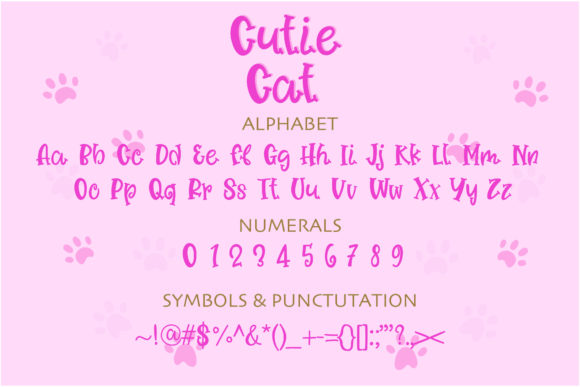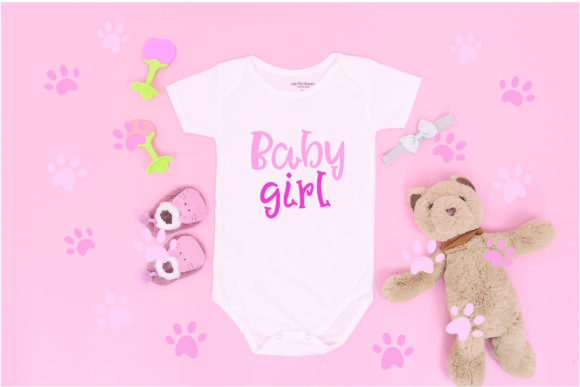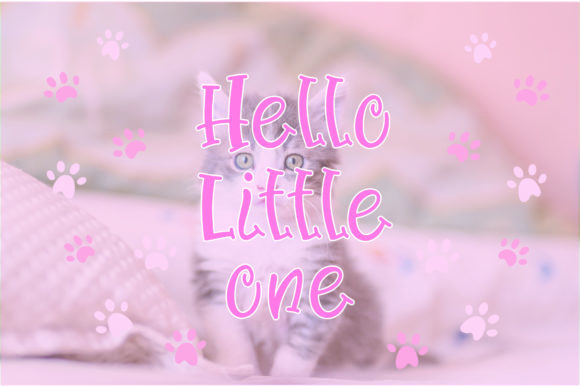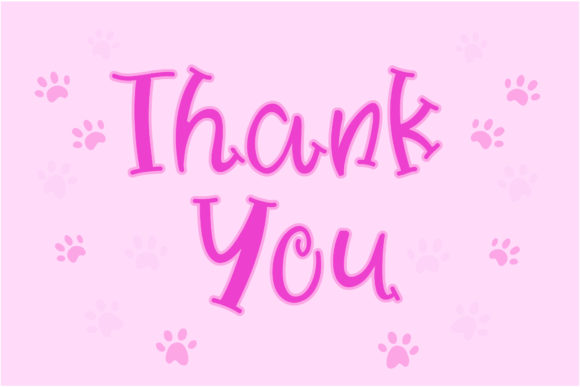
Introducing Cutie Cat Font: The Purrfect Addition to Your Font Library
Are you a designer, crafter, or DIY enthusiast looking for a font that can add a touch of warmth and personality to your creations? Look no further than Cutie Cat Font, a lovely, jolly, and relaxed handwritten font that’s sure to become a favorite in your font library. In this article, we’ll explore the features and benefits of Cutie Cat Font, and why it’s a wonderful asset to have in your design toolkit.
The Charm of Cutie Cat Font
Cutie Cat Font is a beautifully crafted handwritten font that’s designed to bring a sense of joy and playfulness to your designs. Its relaxed and jolly vibe makes it perfect for a wide range of projects, from creative crafts and DIY tutorials to digital designs and marketing materials. Whether you’re creating a blog post, social media graphic, or promotional material, Cutie Cat Font is sure to add a touch of whimsy and charm.
Key Features of Cutie Cat Font
- Handwritten style: Cutie Cat Font has a lovely handwritten feel that’s perfect for adding a personal touch to your designs.
- Relaxed and jolly vibe: This font exudes a sense of calm and playfulness, making it perfect for projects that require a friendly and approachable tone.
- Versatile: Cutie Cat Font can be used for a wide range of projects, from digital designs to craft tutorials and marketing materials.
- Easy to read: Despite its playful feel, Cutie Cat Font is easy to read and understand, making it perfect for body text and captions.
Why Designers and Crafters Love Cutie Cat Font
So, why do designers and crafters love Cutie Cat Font? For starters, its unique and playful style allows them to add a touch of personality to their designs. Whether they’re creating a logo, social media graphic, or craft tutorial, Cutie Cat Font helps them stand out from the crowd and convey their message in a friendly and approachable way.
Another reason designers and crafters love Cutie Cat Font is its versatility. This font can be used for a wide range of projects, from digital designs to handmade crafts and DIY tutorials. Whether you’re creating a blog post, video tutorial, or promotional material, Cutie Cat Font is sure to enhance your creation and make it more engaging.
How to Use Cutie Cat Font in Your Designs
Using Cutie Cat Font in your designs is easy. Here are a few tips to get you started:
- Pair it with bold fonts: Cutie Cat Font looks great when paired with bold fonts, which can help create a nice contrast and add visual interest to your design.
- Use it for headings and captions: Cutie Cat Font is perfect for headings and captions, where its playful feel can really shine.
- Experiment with colors: Cutie Cat Font looks great in a variety of colors, so don’t be afraid to experiment and find the perfect hue for your design.
| Font Name | Cutie Cat Font |
| Author | GoodMoodType |
In conclusion, Cutie Cat Font is a wonderful asset to have in your font library. Its lovely, jolly, and relaxed handwritten style makes it perfect for a wide range of projects, from digital designs to handmade crafts and DIY tutorials. Whether you’re a designer, crafter, or DIY enthusiast, Cutie Cat Font is sure to bring a touch of warmth and personality to your creations. So why not give it a try and see how it can enhance your next project?